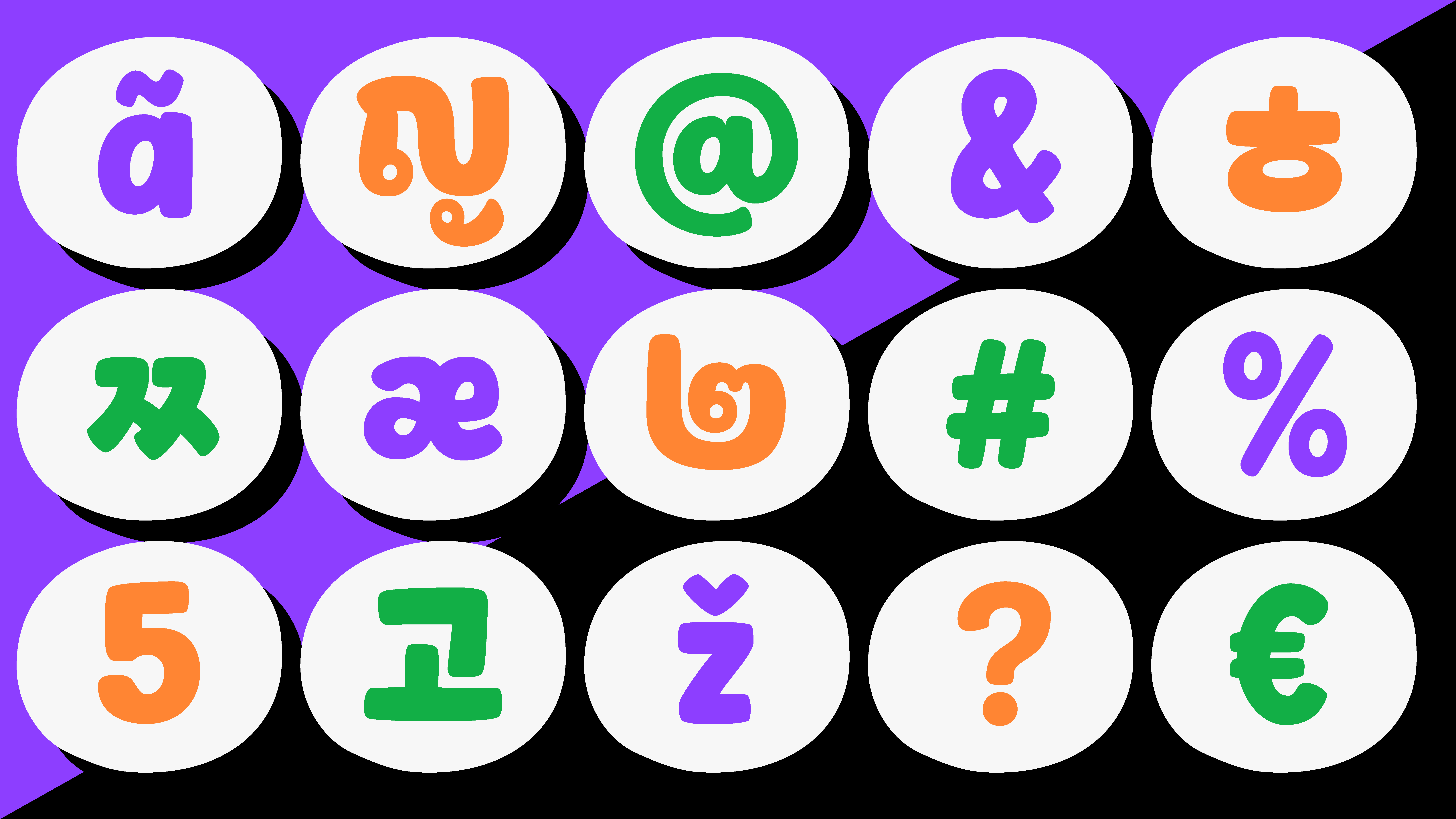
Dolino
돌리노
โดลิโน
Dolino – Drawn with instinct. Crafted with care. Dolino is a display typeface with handwritten roots: soft yet structured, expressive yet legible. Its strokes feel personal, friendly and assertive. Blending Latin, Hangul, and Thai, Dolino balances charm and discipline across writing systems. It’s a single-weight font designed to leave a warm, confident impression: perfect for identity, headlines, or storytelling with soul.
Designers: Brahim Boucheikha & Gia Tran